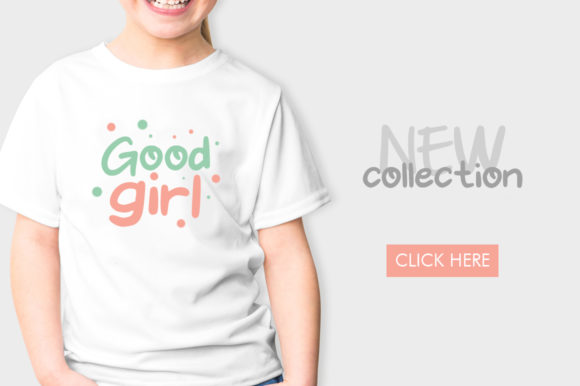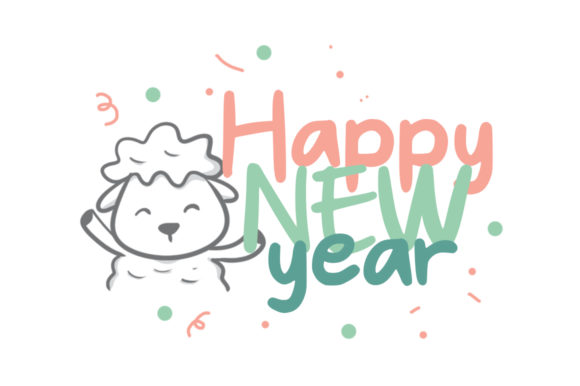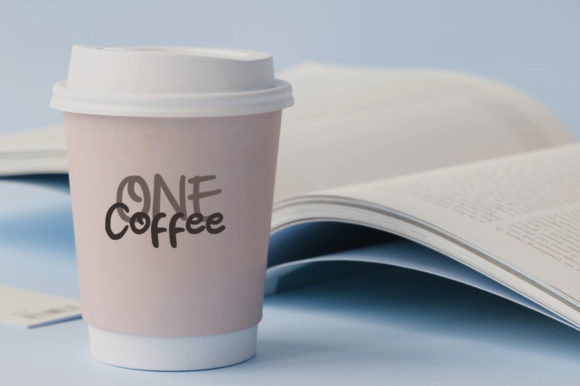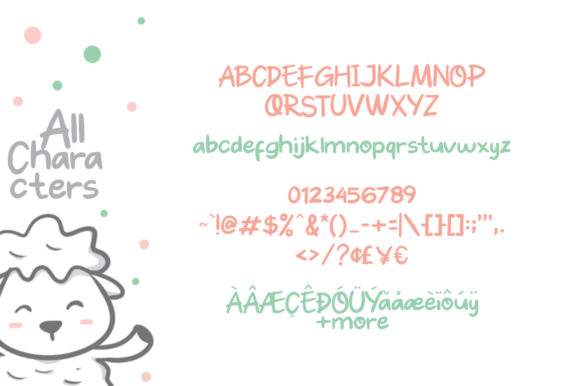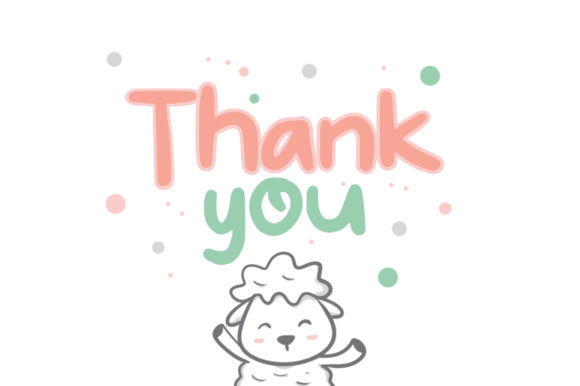
Introducing Go Sheep Font: A Fun Display Typeface for Creative Projects
Are you a designer or crafter looking for a unique and playful font to add some personality to your projects? Look no further than Go Sheep Font! This fun display typeface is perfect for creating eye-catching name cards, posters, logos, magazines, covers, and even large-scale artwork. In this article, we’ll dive into the features and benefits of Go Sheep Font, and explore how it can elevate your creative projects.
A Fun and Versatile Font
The Go Sheep Font is a fun and versatile typeface that includes awesome characters in 2 different styles: regular and outline. The regular style is perfect for bold and colorful designs, while the outline style provides a more subtle and sophisticated look. With its unique and playful design, Go Sheep Font is sure to add a touch of personality to any project.
Key Features of Go Sheep Font
- 2 Different Styles: Regular and outline styles to suit your design needs
- Awesome Characters: Unique and playful characters to add personality to your projects
- Perfect for: Name cards, posters, logos, magazines, covers, and large-scale artwork
Use Cases for Go Sheep Font
So, what can you create with Go Sheep Font? The possibilities are endless! Here are a few ideas to get you started:
- Name Cards: Create personalized name cards for events, conferences, or business meetings
- Posters: Design eye-catching posters for movies, concerts, or festivals
- Logos: Use Go Sheep Font to create a unique and memorable logo for your brand or business
- Magazines and Covers: Add a touch of personality to your magazine or book covers with Go Sheep Font
- Large-Scale Artwork: Create stunning large-scale artwork for exhibitions, events, or installations
Benefits of Using Go Sheep Font
So, why choose Go Sheep Font for your creative projects? Here are just a few benefits:
- Unique and Playful Design: Stand out from the crowd with Go Sheep Font’s unique and playful design
- Versatility: Use Go Sheep Font for a wide range of projects, from name cards to large-scale artwork
- Time-Saving: Save time and effort with Go Sheep Font’s pre-designed characters and styles
Tips and Tricks for Using Go Sheep Font
Here are a few tips and tricks to help you get the most out of Go Sheep Font:
- Experiment with Colors: Try out different colors and color combinations to add depth and interest to your designs
- Mix and Match Styles: Combine the regular and outline styles to create unique and eye-catching designs
- Play with Size: Experiment with different font sizes to create visual hierarchy and emphasis
- Add Texture and Patterns: Add texture and patterns to your designs to give them an extra layer of depth and interest
In conclusion, Go Sheep Font is a fun and versatile display typeface that’s perfect for creative projects. With its unique and playful design, 2 different styles, and compatibility with most design software and platforms, it’s an ideal choice for designers and crafters looking to add some personality to their work. Whether you’re creating name cards, posters, logos, or large-scale artwork, Go Sheep Font is sure to help you stand out from the crowd.